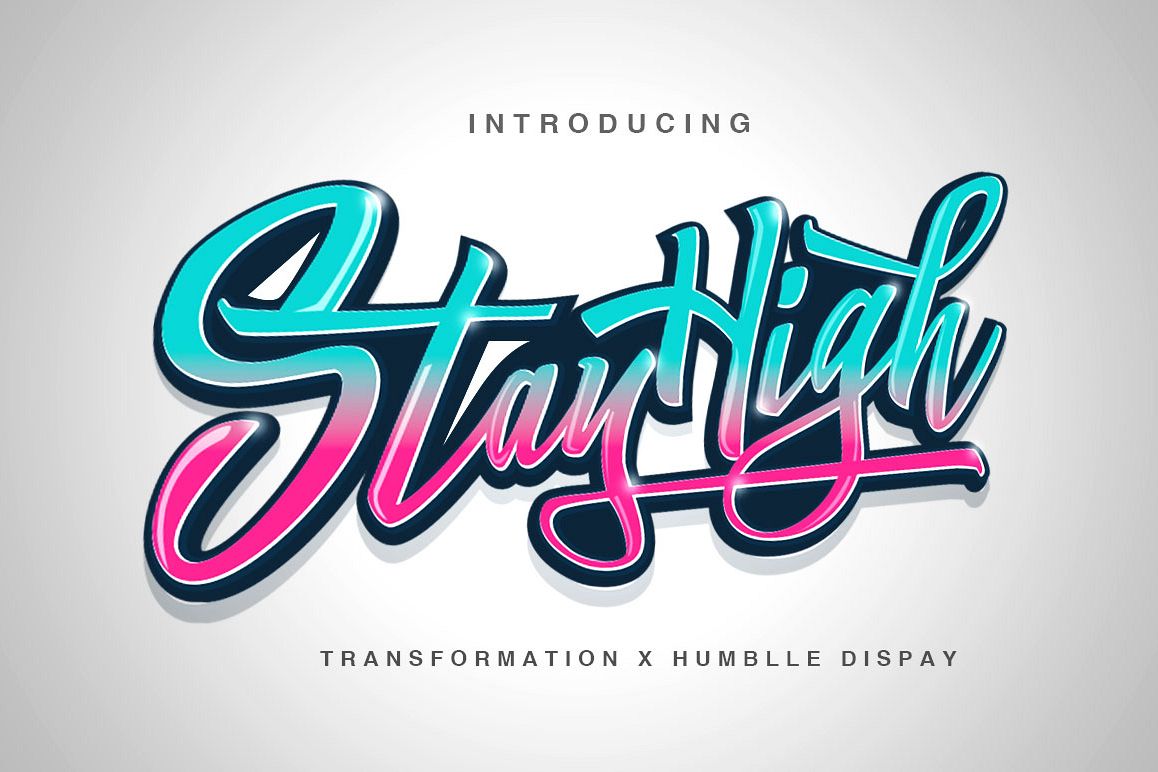
Stay High
Stay High, Can used for various purposes. such as the title, signature, logo, correspondence, wedding invitations, letterhead, signage, labels, newsletters, posters, badges, etc. Stay High features + 200 glyphs and also supports in pragram, Adobe Illustrator, Adobe Photoshop, Adobe InDesign, Corel Draw X version, Microsoft Word, Language Support : Albanian, Basque, Breton, Chamorro, Danish, Dutch, English, Faroese, Finnish, French, Frisian, Galician, German, Icelandic, Italian, Malagasy, Norwegian, Portuguese, SwedishThe Features of this fonts is:
• Initial Forms
• Terminal Forms
• International glyphs